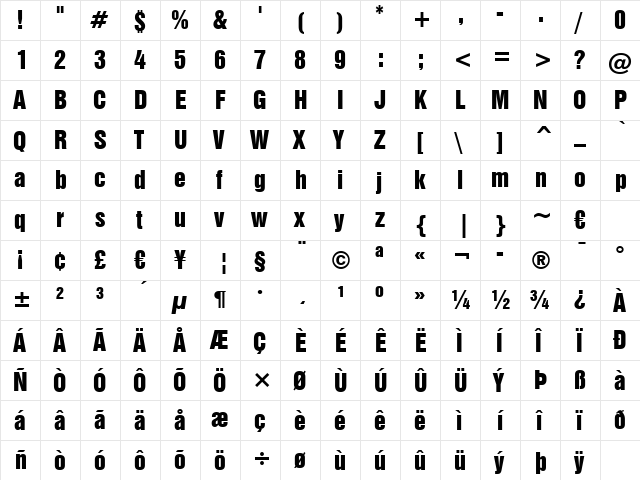
font244 Regular
Design Context for font244 Typeface
font244 takes a measured approach to typography — its balanced proportions and neutral character make it a reliable workhorse for both digital and print work.